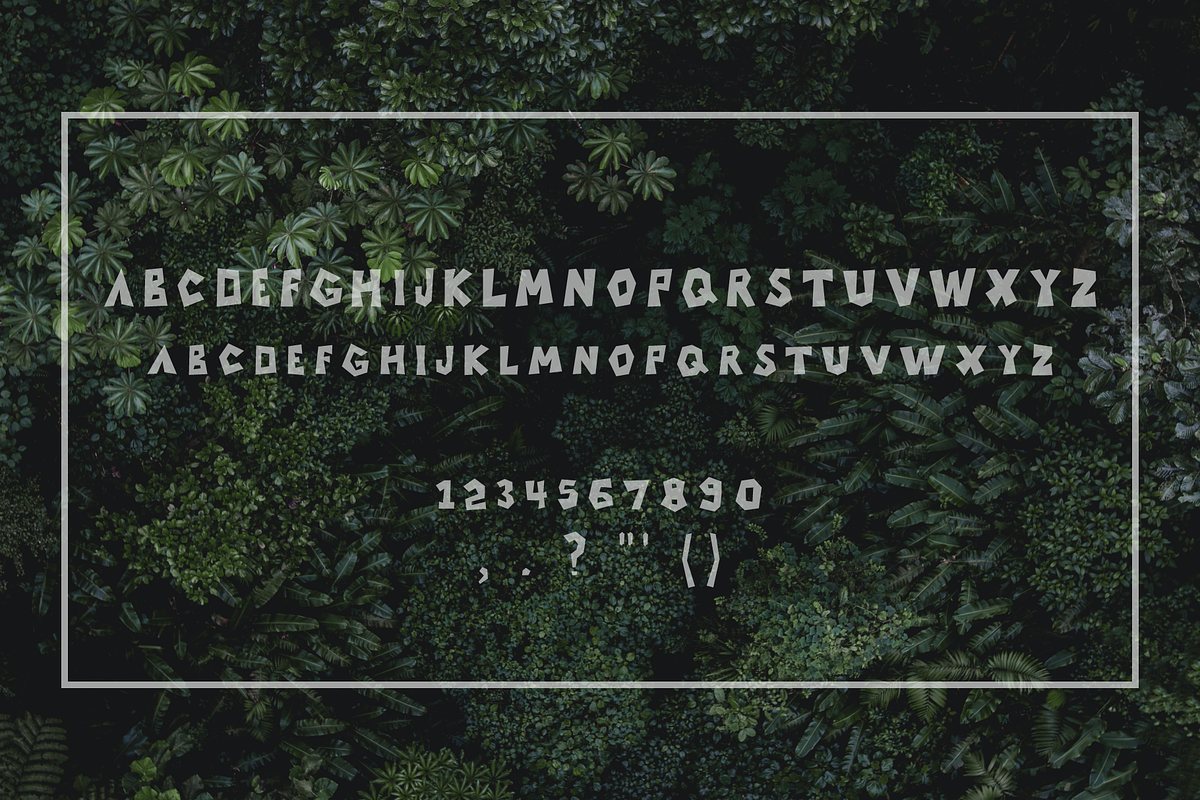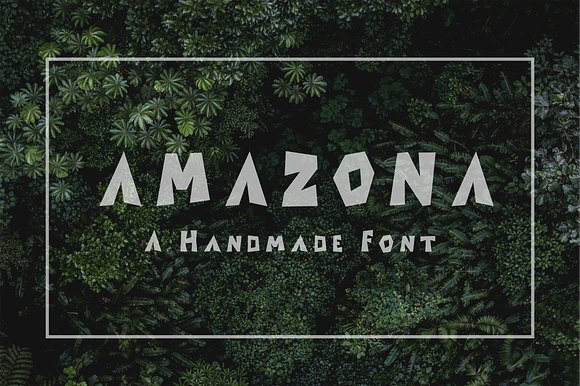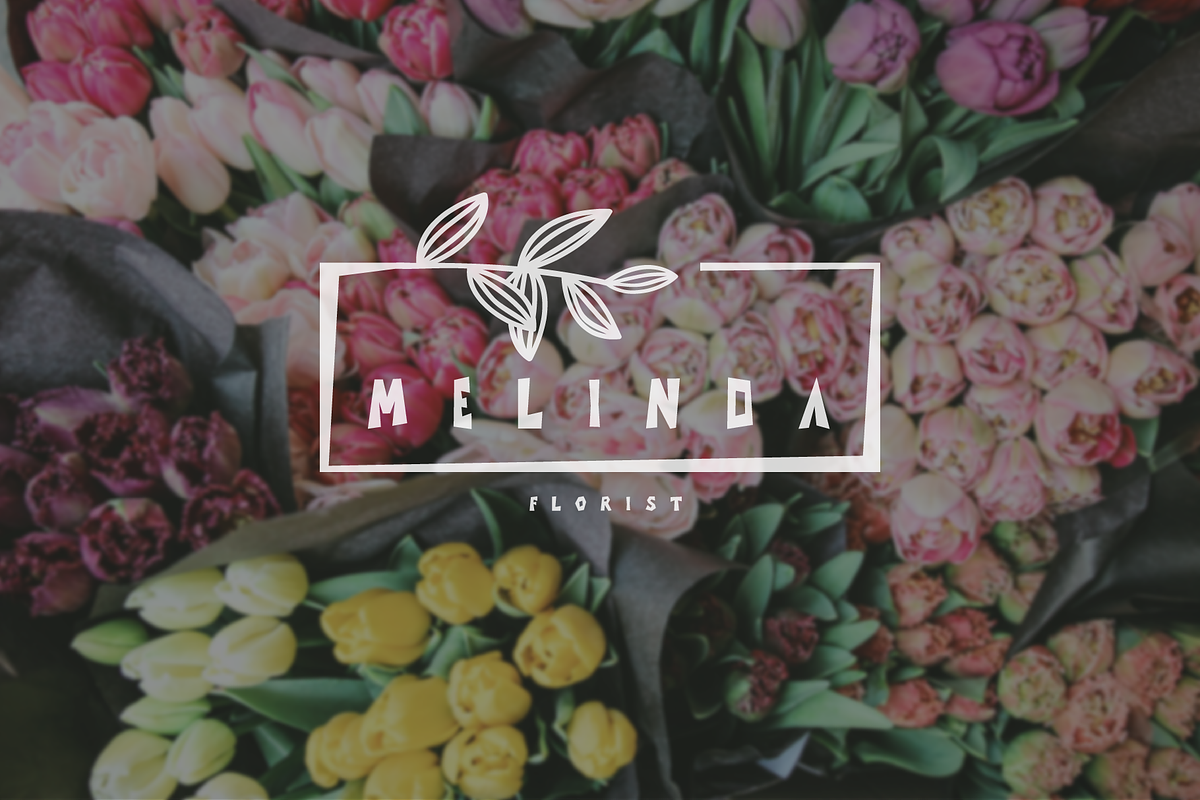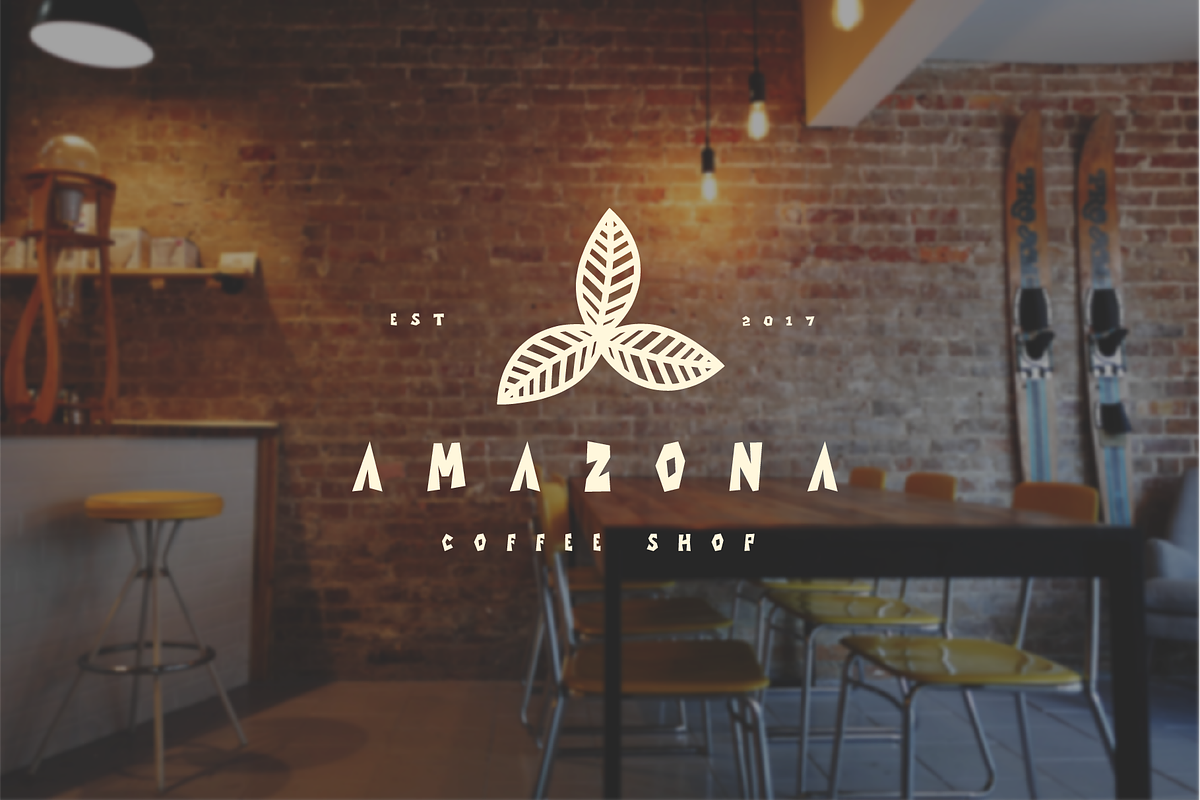
Amazona Font
A beautiful handmade font created just for you.
Why Amazona Font is worth a look
Amazona Font by NRProductions fits naturally into Branding, posters, packaging, typography.